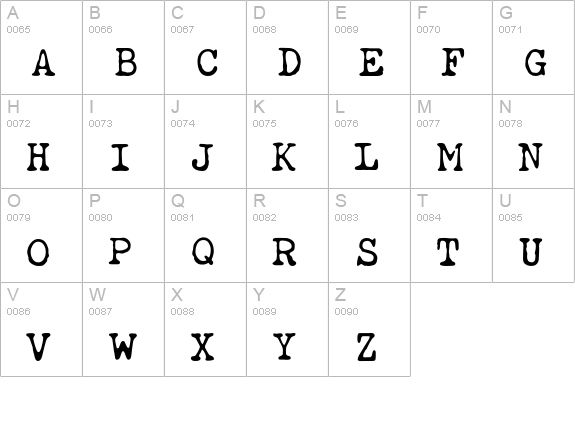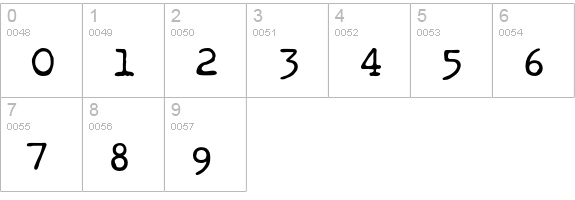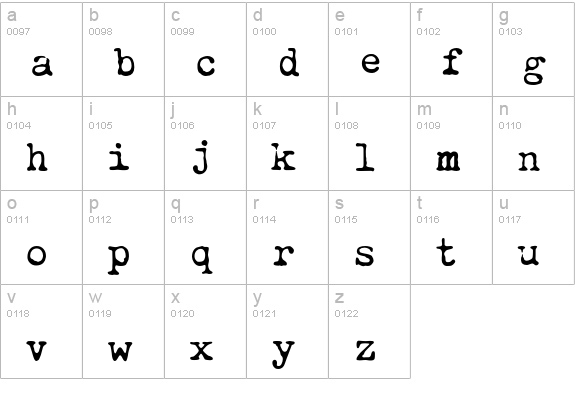
Obsolete Font Details
"Embrace the vintage charm with Obsolete font, a stunning typeface that pays homage to classic design aesthetics. This font exudes a sense of nostalgia and timelessness, making it perfect for projects that require a touch of retro flair. With its unique letterforms and elegant curves, Obsolete font adds a sophisticated touch to any design. The best part? Obsolete font is completely free to download at FontsMarket.com. Now you can easily incorporate this beautiful typeface into your projects without breaking the bank. Whether you're working on branding, packaging, invitations, or any other creative endeavor, Obsolete font is sure to elevate your designs to the next level. Don't miss out on the opportunity to enhance your projects with the timeless elegance of Obsolete font. Download it for free today and let your creativity shine!"